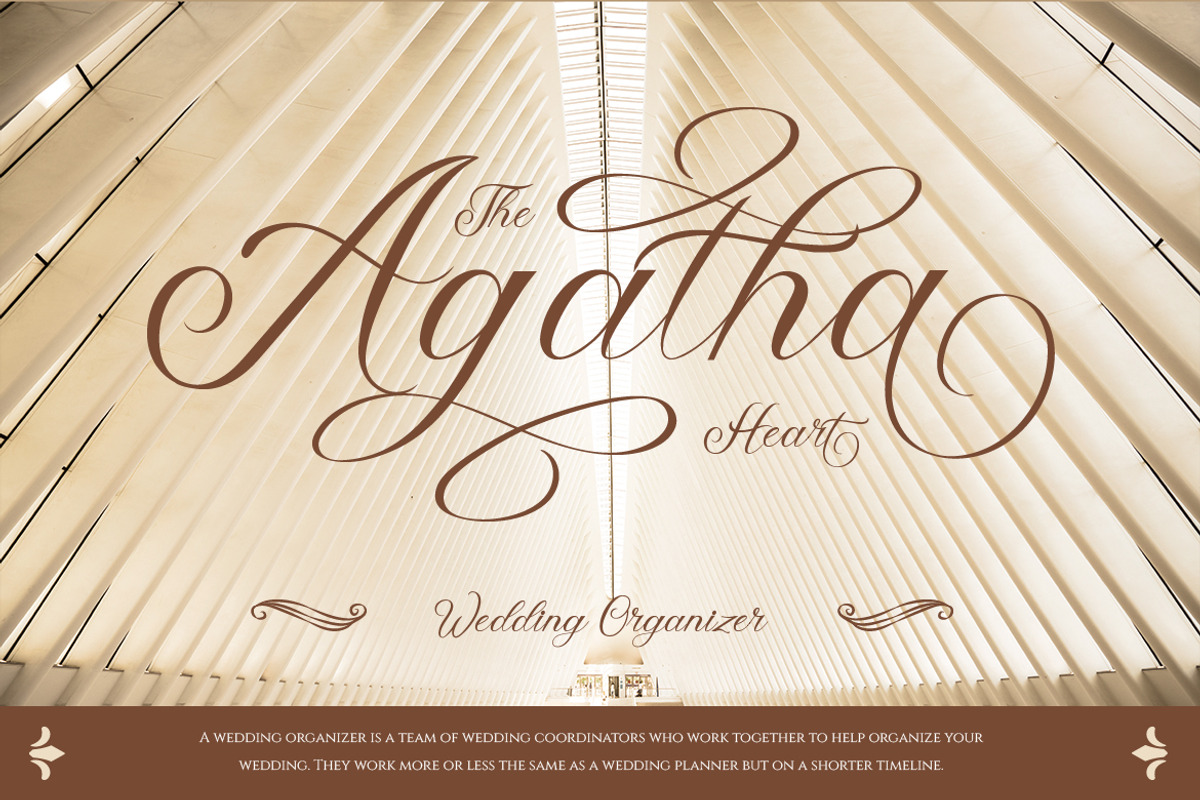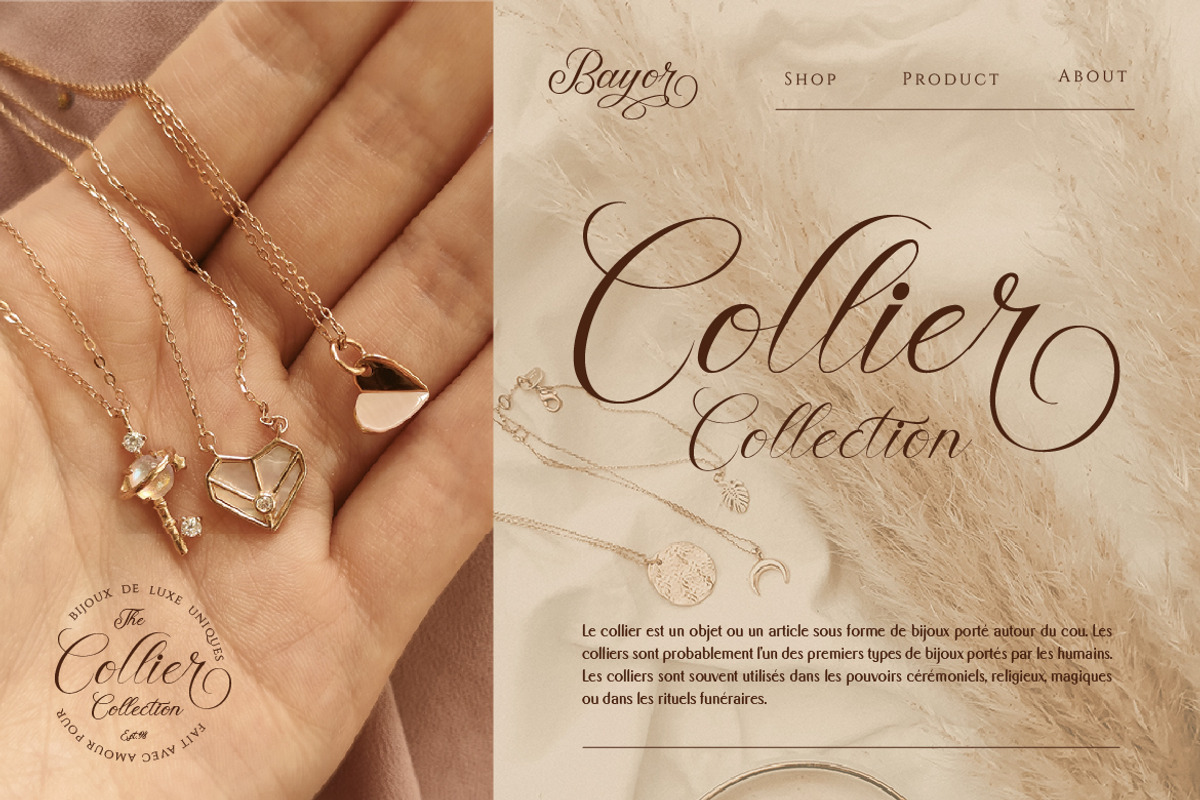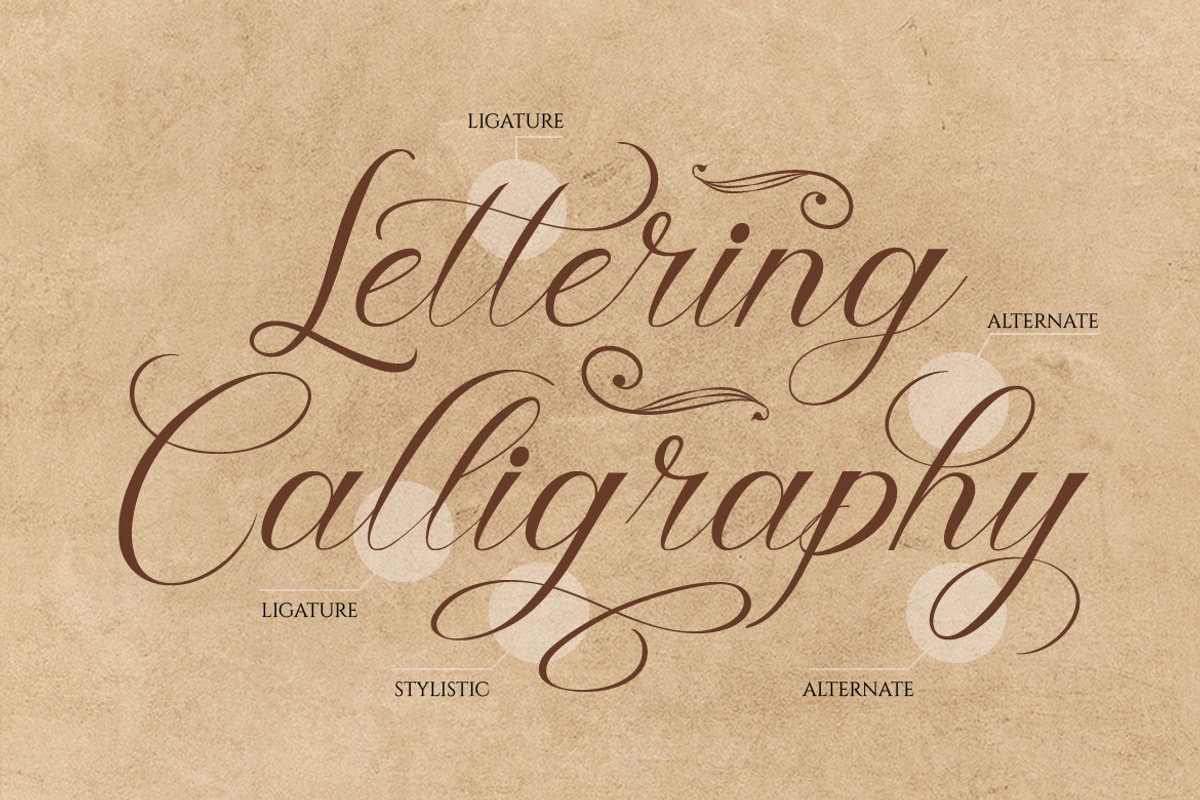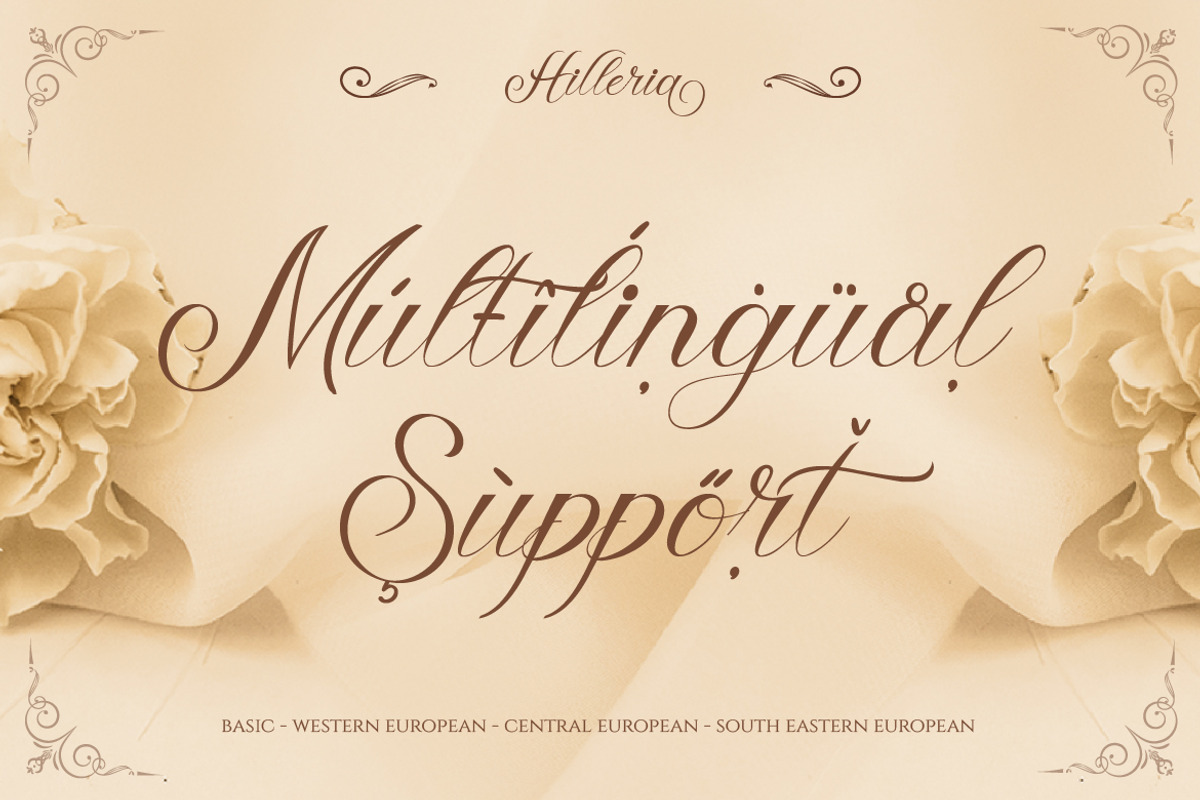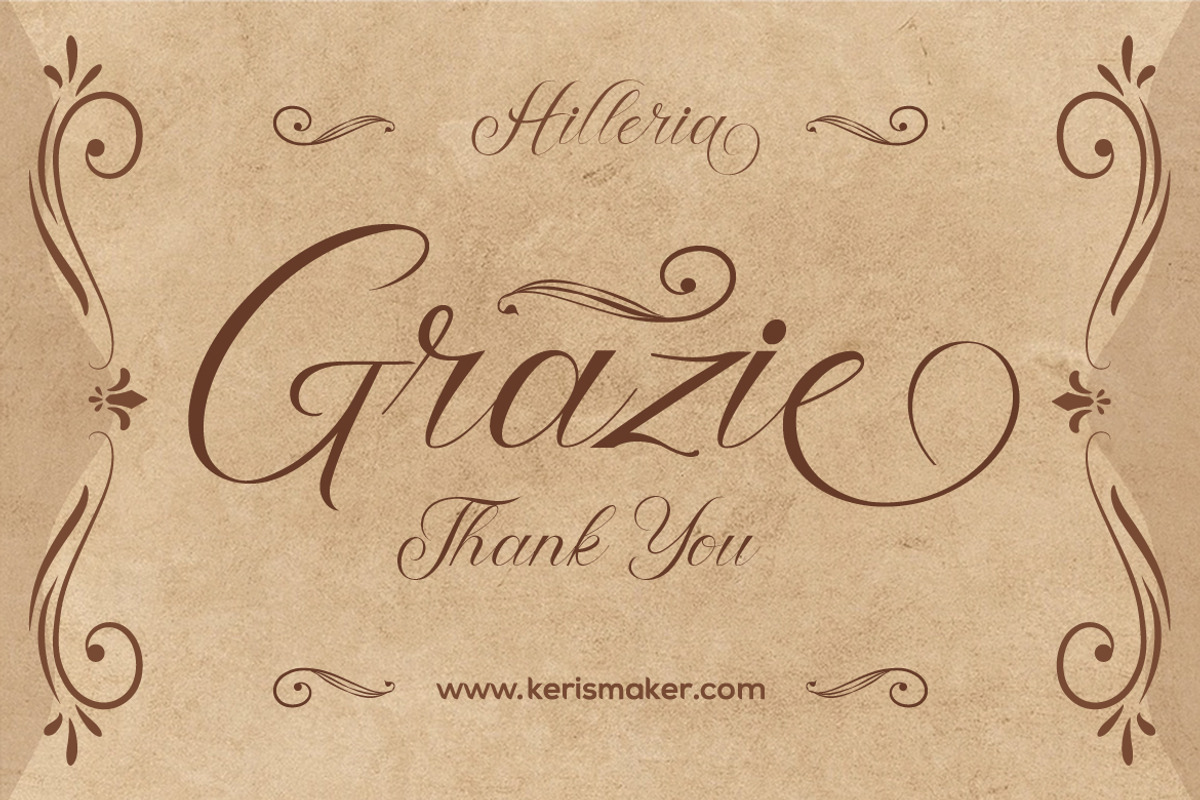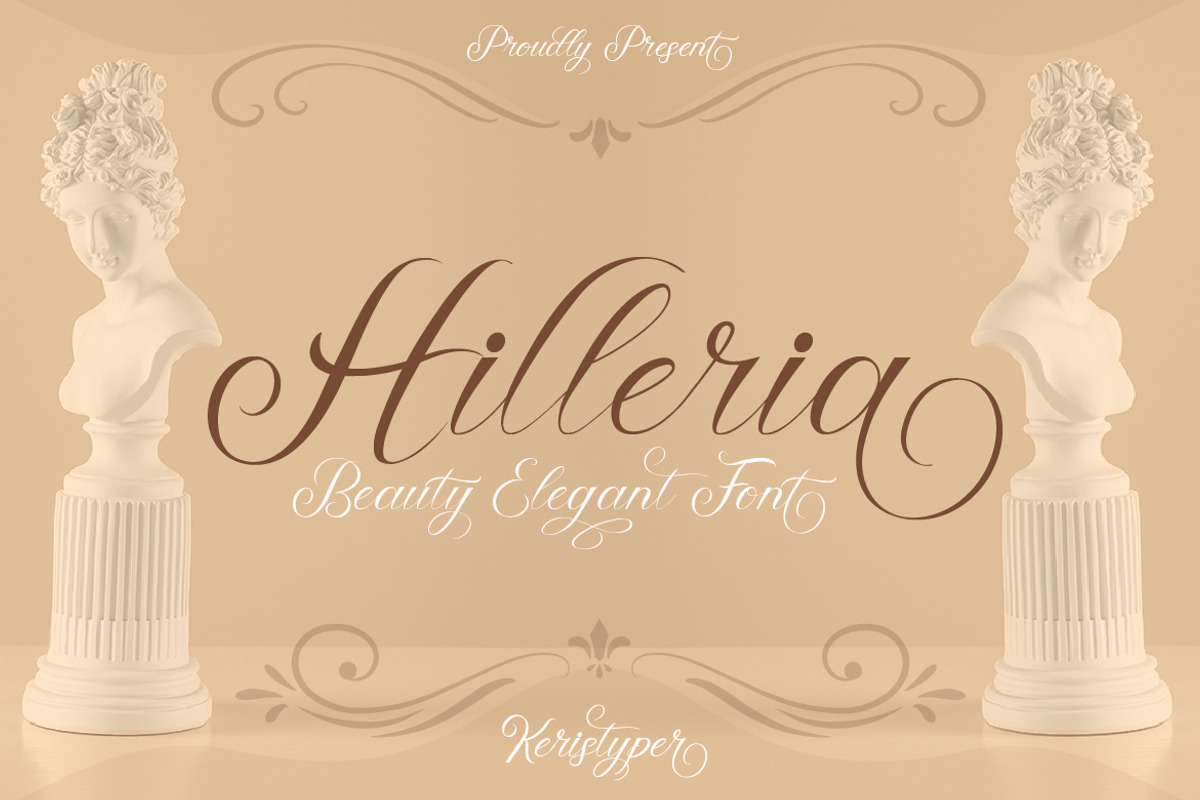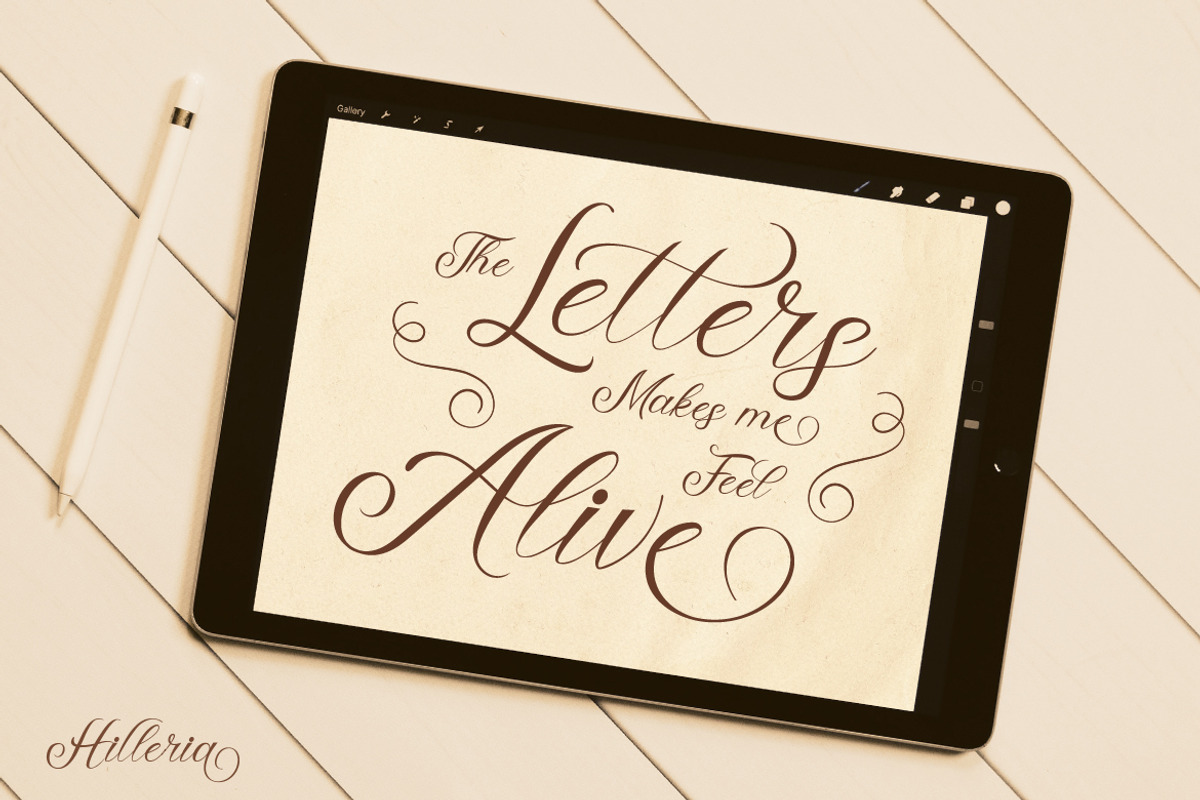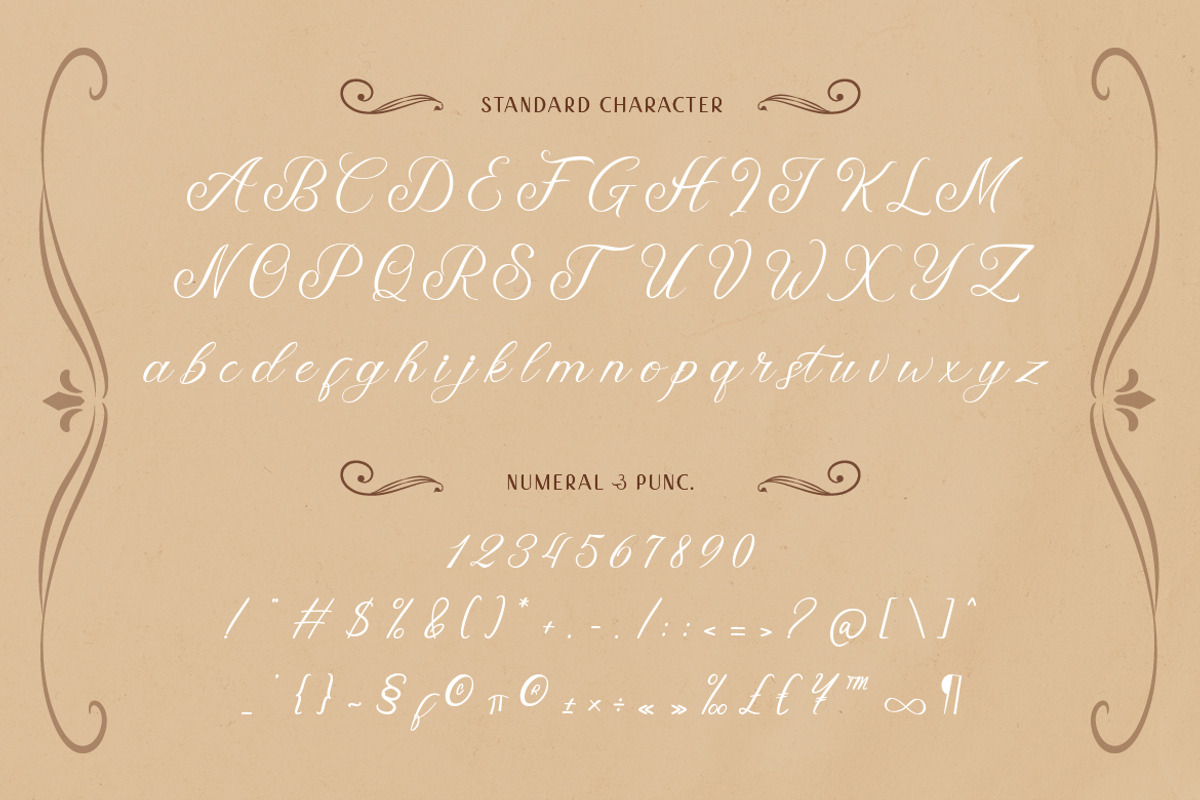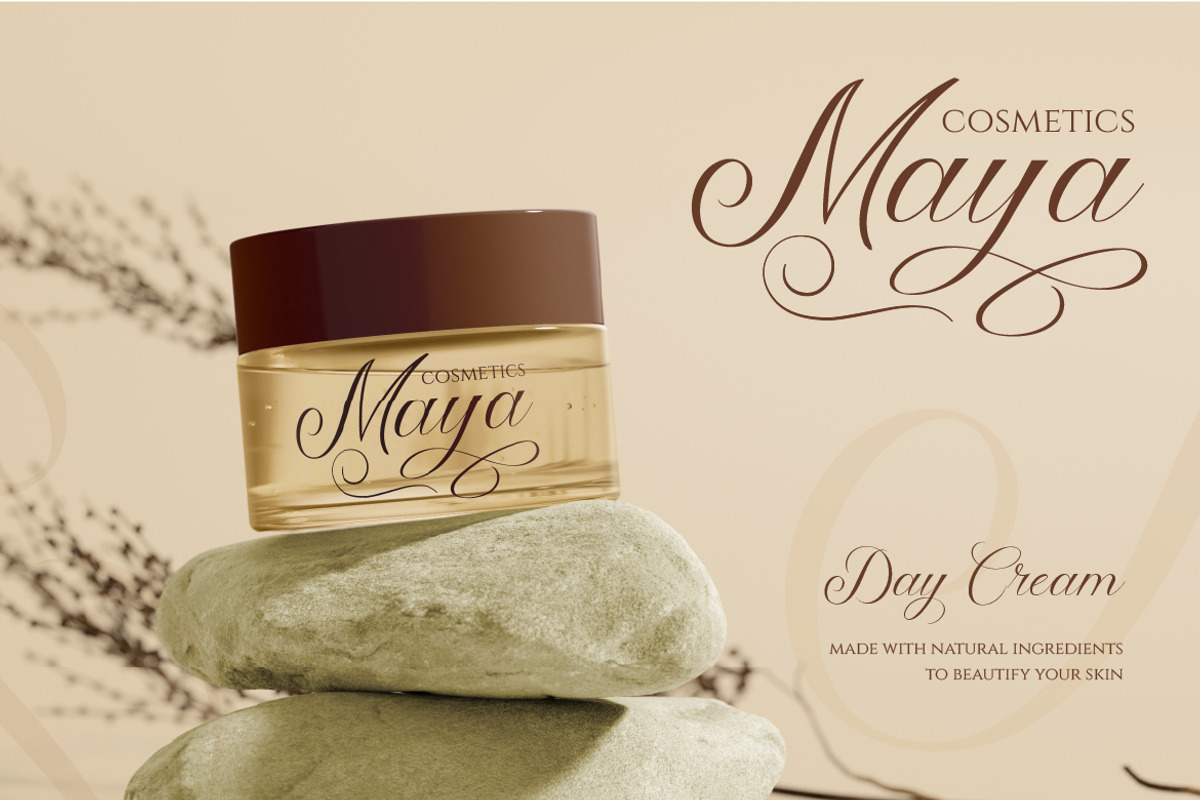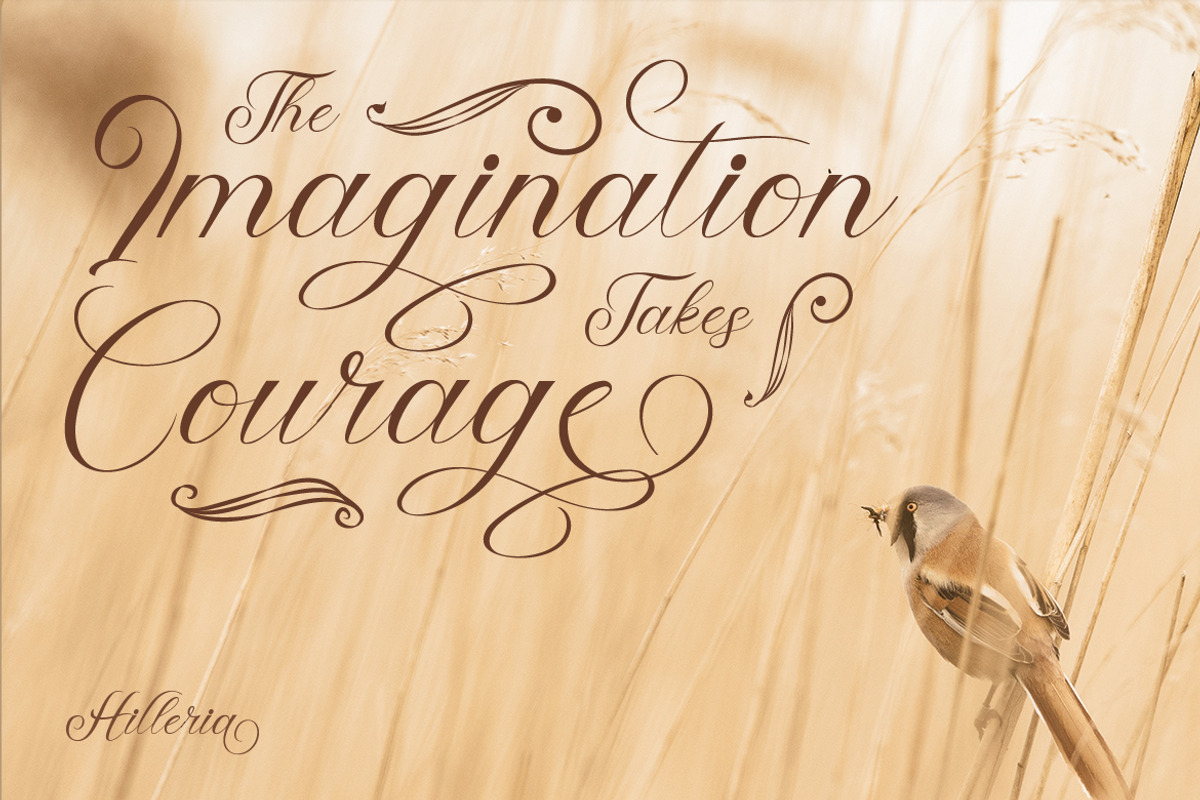
Hilleria
Hilleria is a calligraphy script font that comes with exquisite change characters, a kind of classic decorative script with a modern twist, designed with great detail to bring out a stylish elegance. This font is good for logo design, Social media, Movie Titles, Books Titles, short text even long text letters, and good for your secondary text font with sans or serif.
- Standard Uppercase & Lowercase
- Multilingual : ä ö ü Ä Ö Ü ß ¿ ¡
- Alternate & Ligature